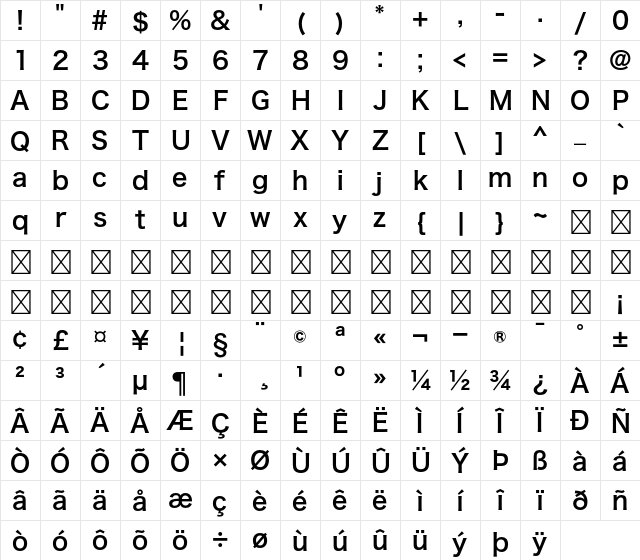
Hiragino Sans Pr6N W6
Style: W6
Foundry: Dainippon Screen Mfg. Co., Ltd.
Designer: JIYUKOBO Ltd.
Design Context for Hiragino Sans Pr6N
Hiragino Sans Pr6N is a composed and adaptable typeface that performs quietly and consistently across a wide range of design contexts.
Who designed the Hiragino Sans Pr6N W6 font?
This font was published by Dainippon Screen Mfg. Co., Ltd.. Check the technical specs section for copyright and designer details.